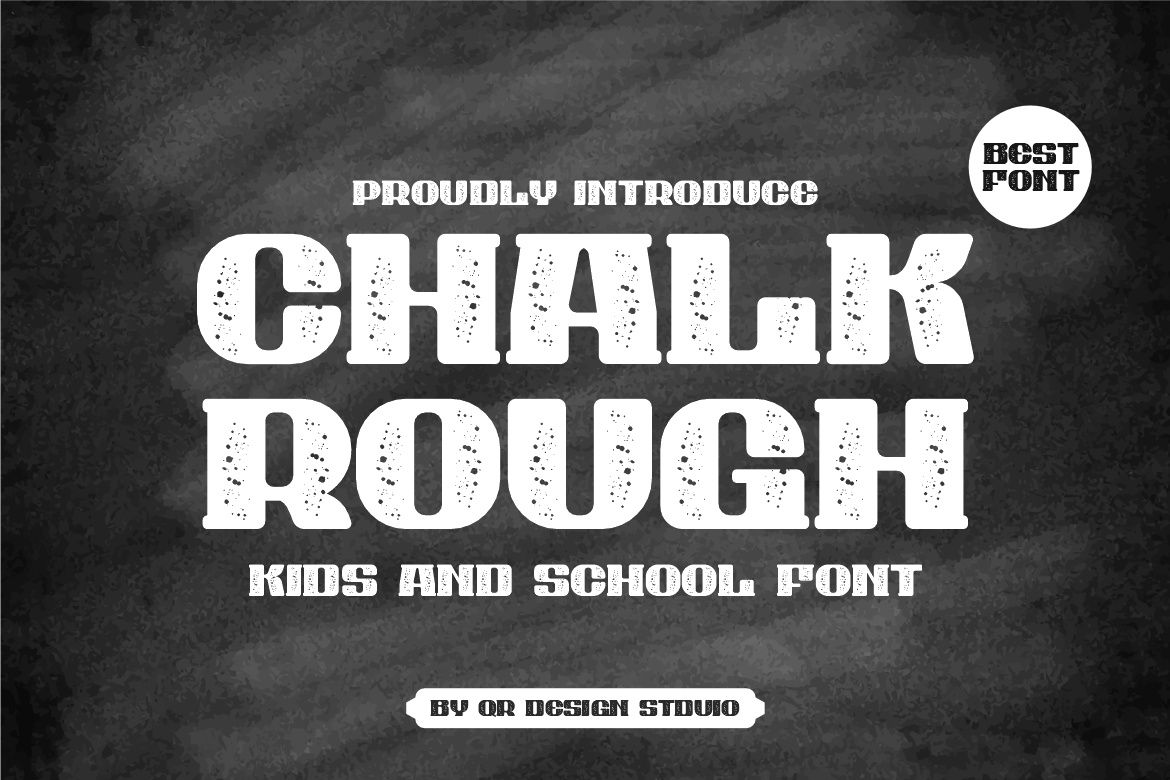
Chalk Rough - Kids & School Font
Chalk Rough - Kids & School Font is a bold and authentic display font. The font is suitable for any branding project like poster, logo, sport, and many more. Outstanding in a wide range of contexts.